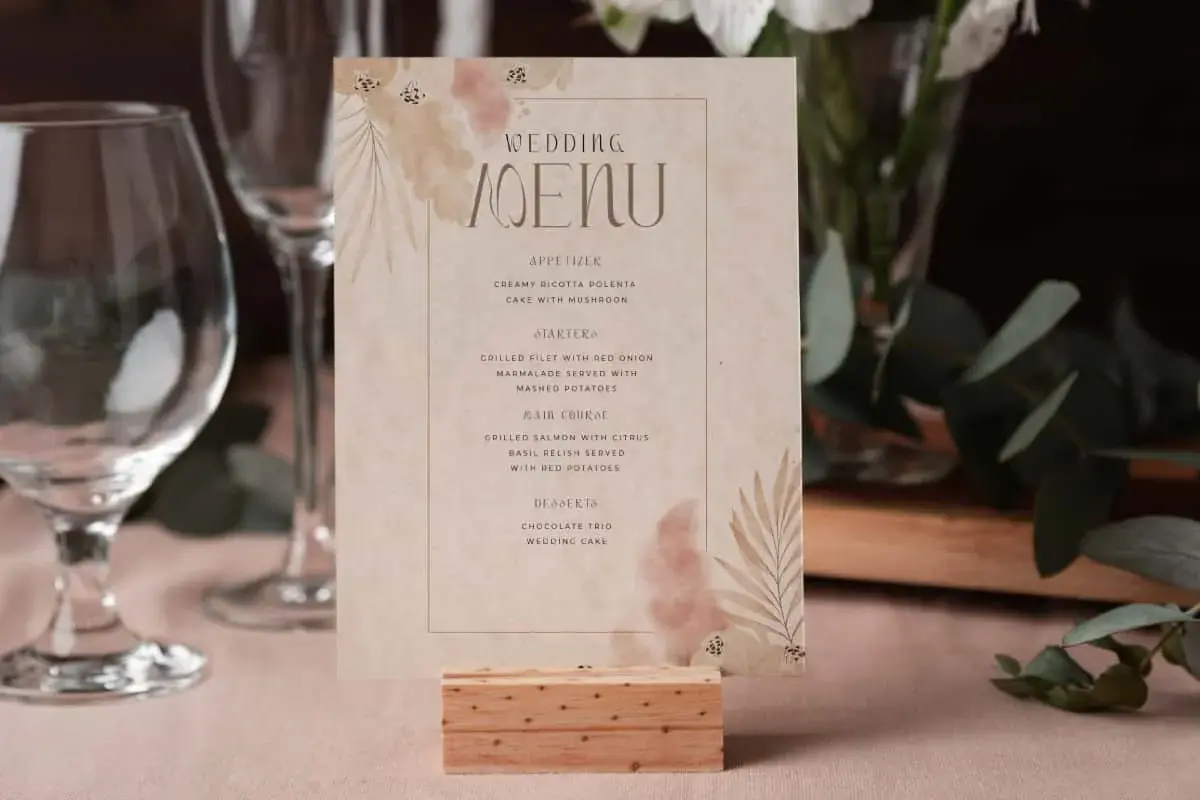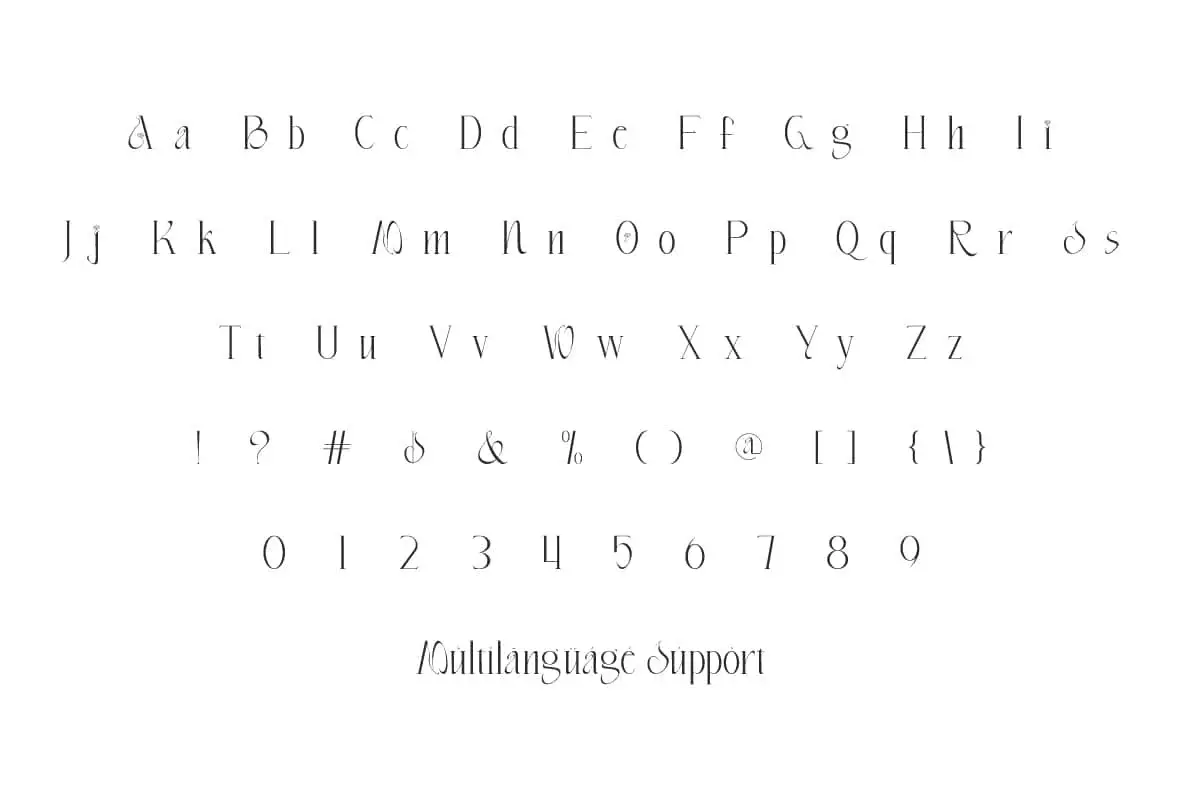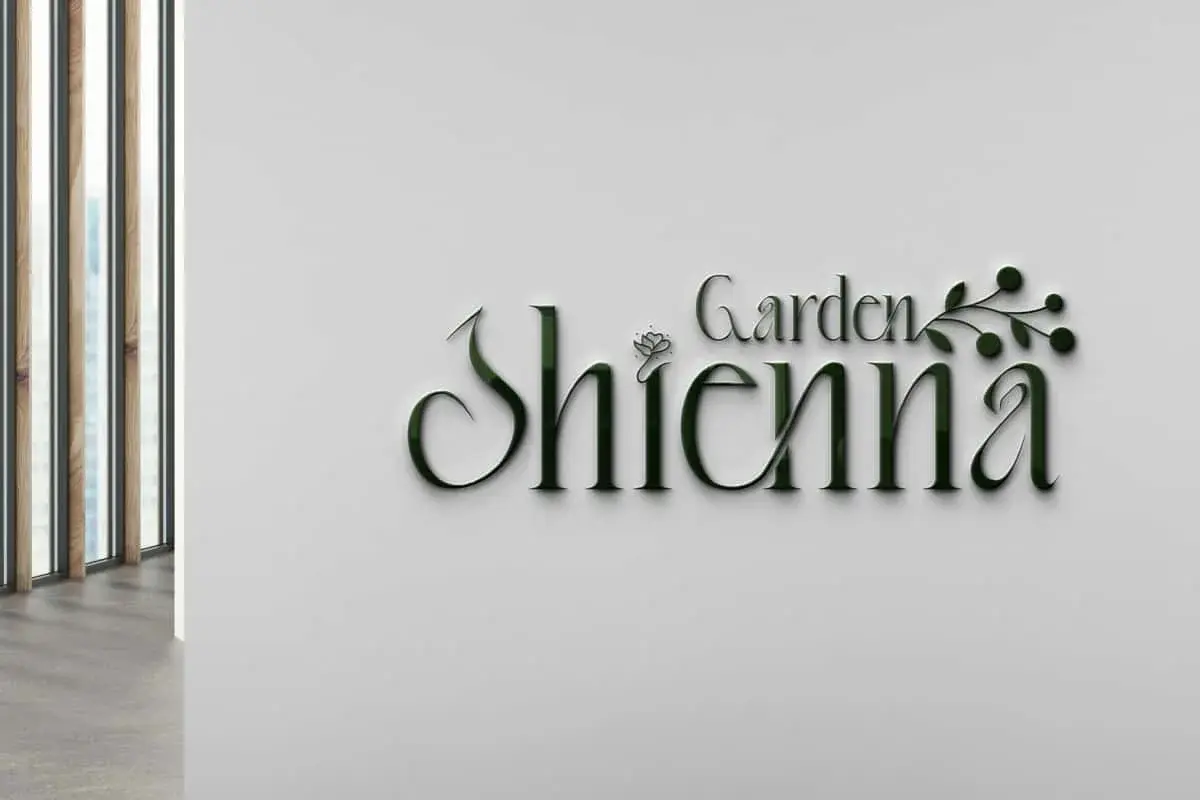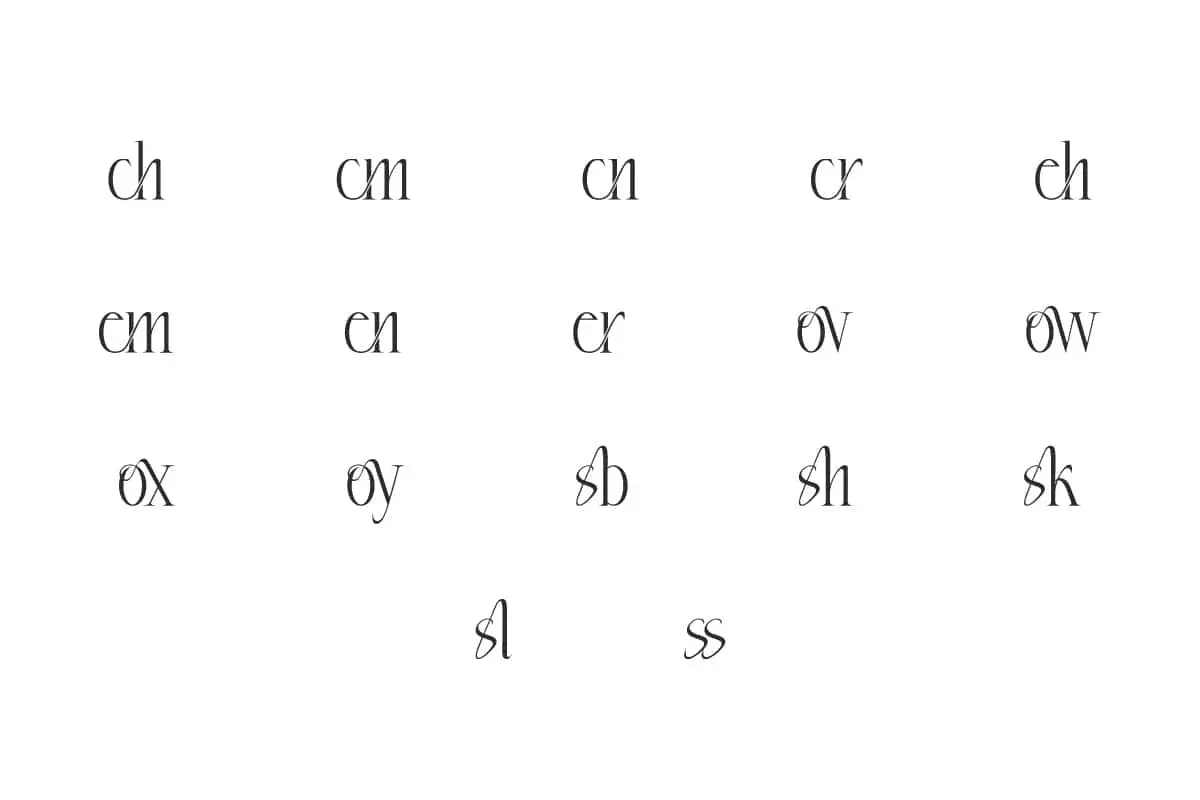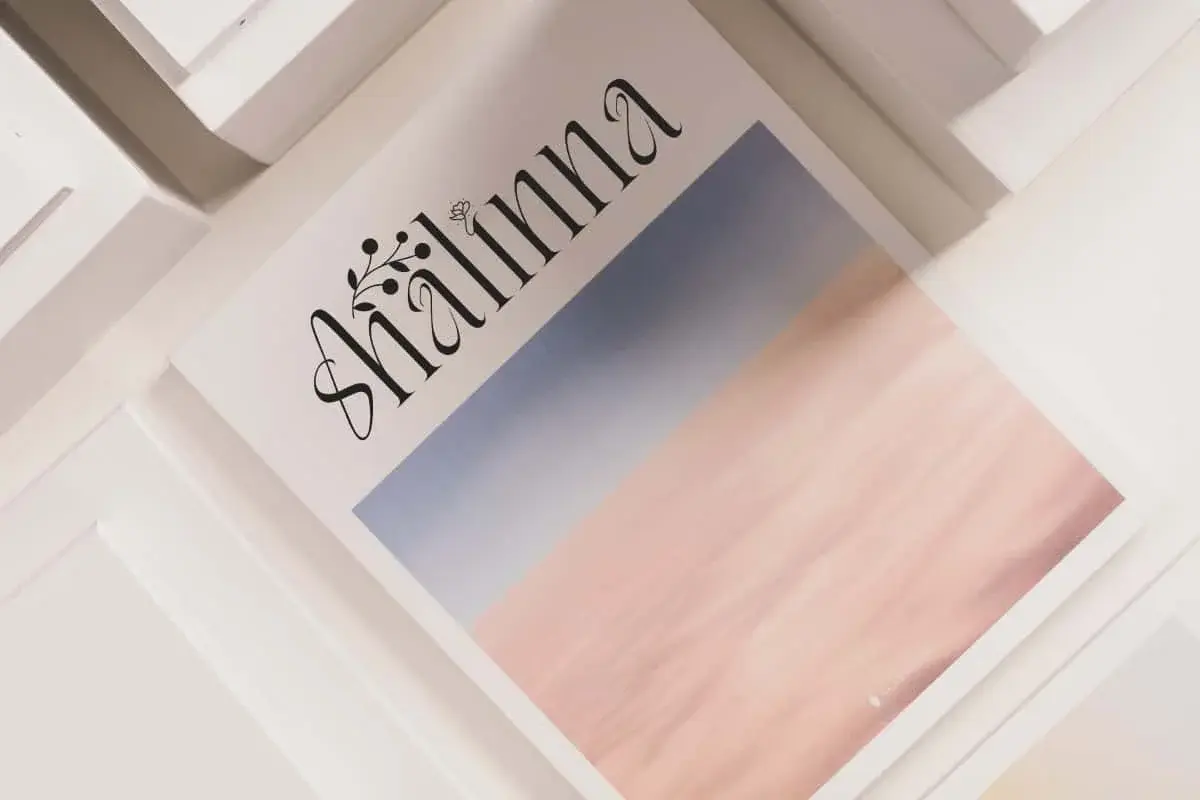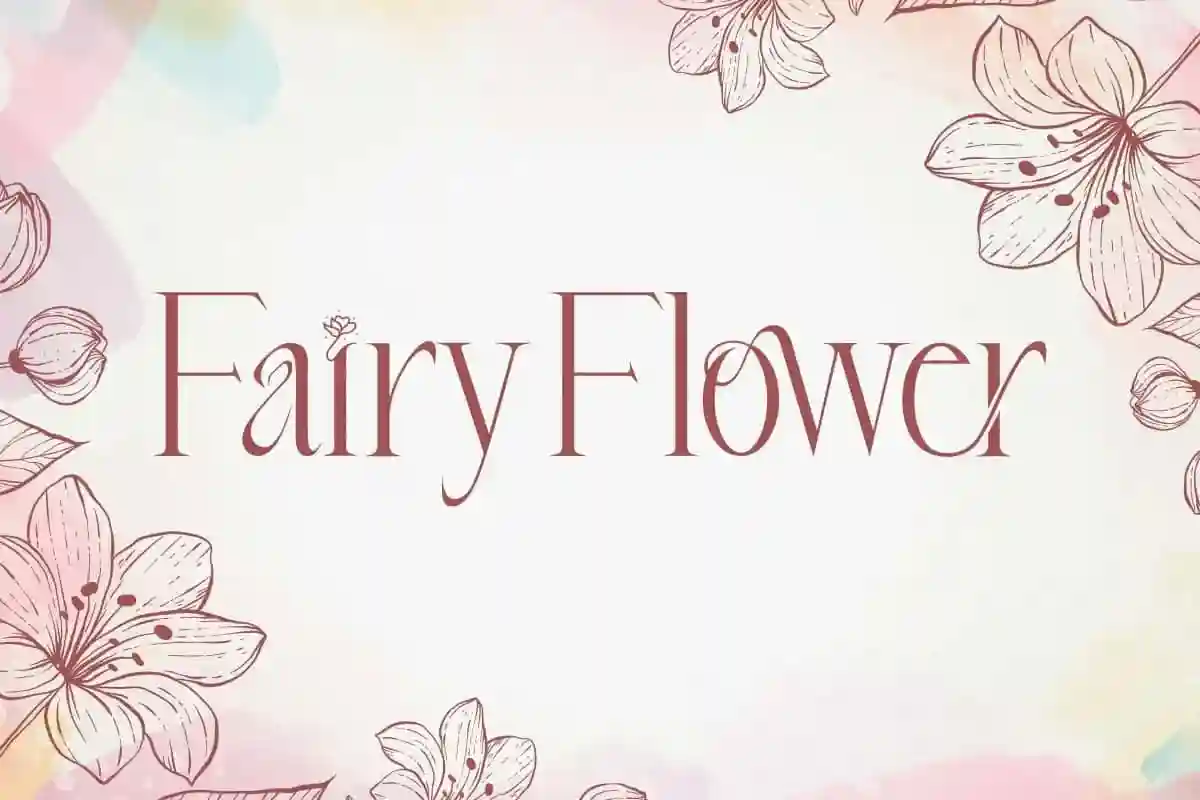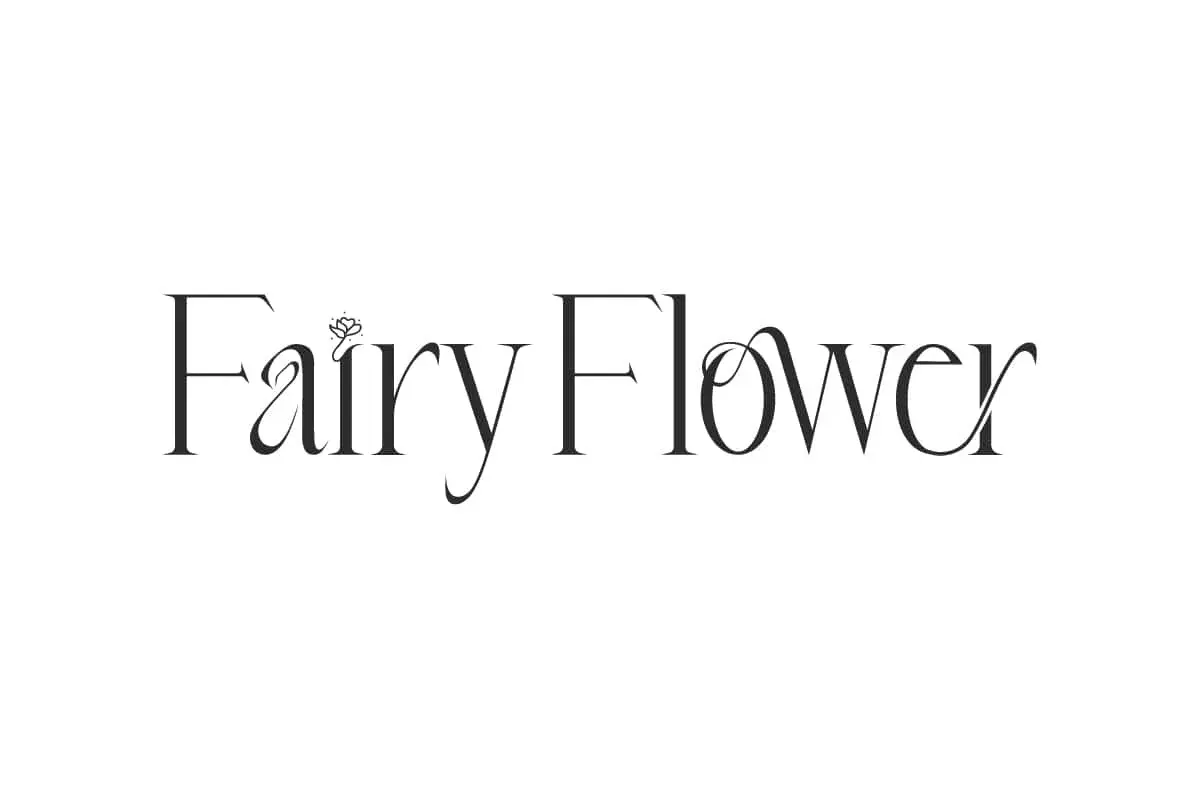
Fairy Flower Font is a stylish elegant modern font with a exclusive looks and shapes. Inspired by the beautiful shape of flowers that will be ready to enhance any work!
Fairy Flower Font is an elegant cute serif display font with a stunning stylish ligatures that will be perfect for creating blogs, brand logos, brochure, corporate sign, greeting card, logotypes, header, beautiful invitations, menu sheet, title, and more. This font can be your beautiful option when you are working on a project.
Fairy Flower Font includes a complete set of Basic Uppercase and Lowercase Characters, Numbers, Punctuation Marks, Symbols and Ligatures. This awesome font is perfect for cosmetic brands, fashion, florist, gardener, special events, and much more. This makes it a versatile choice for a variety of arts that require beautiful letters with nearly perfect proportions.